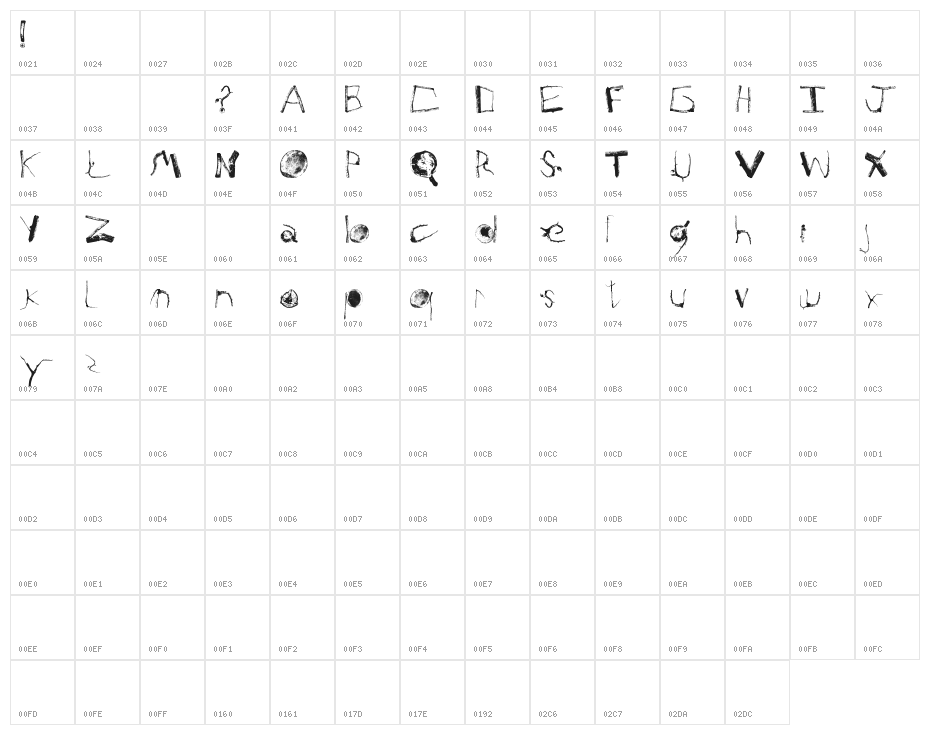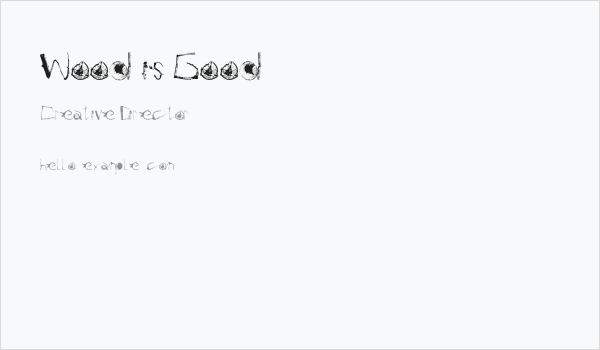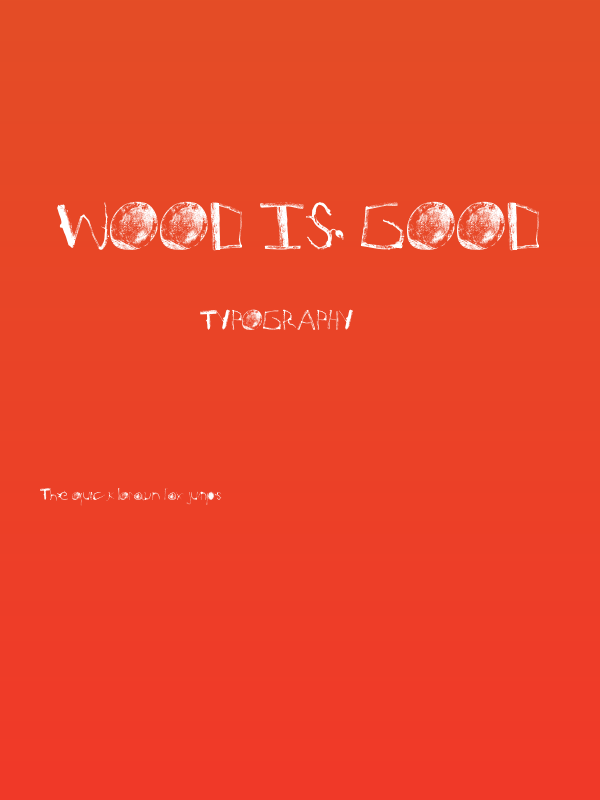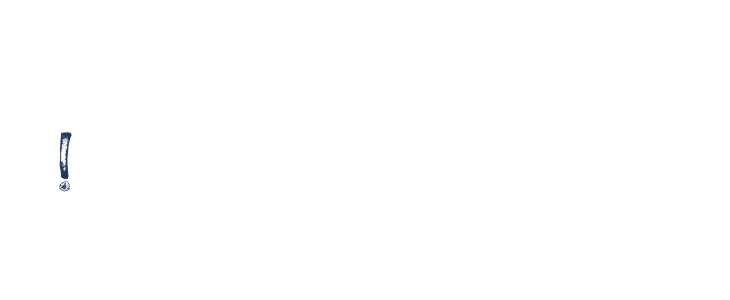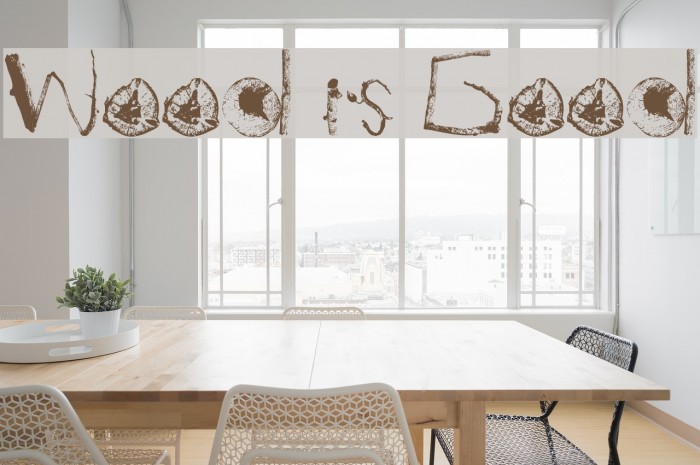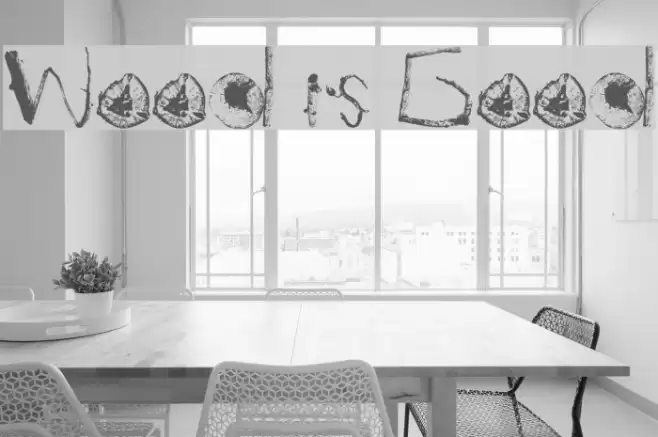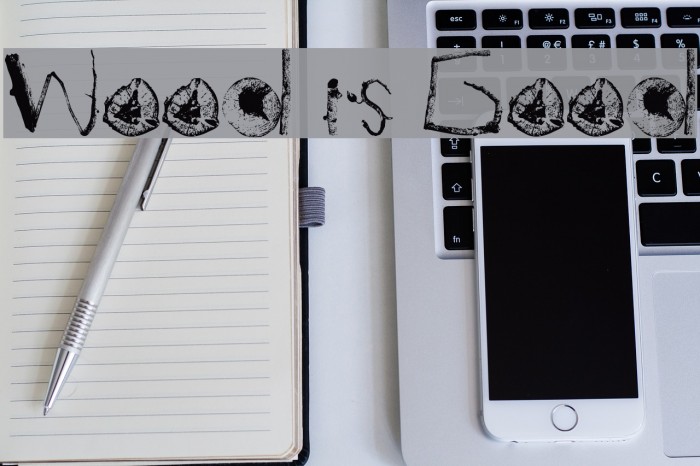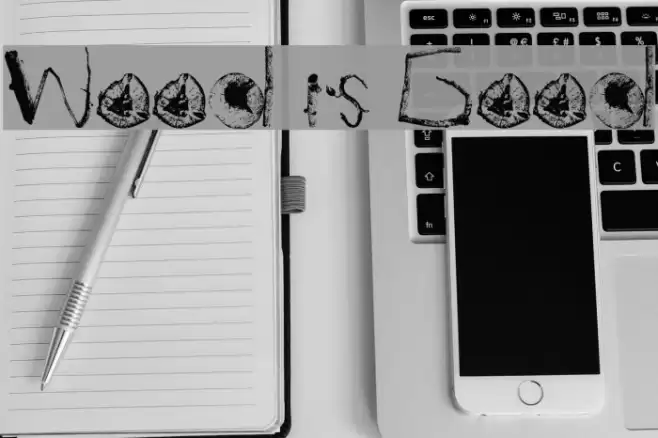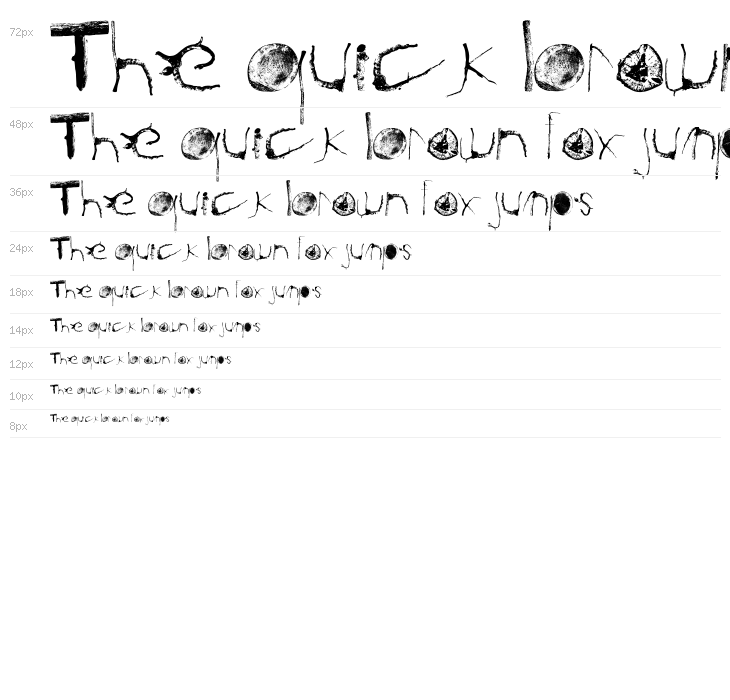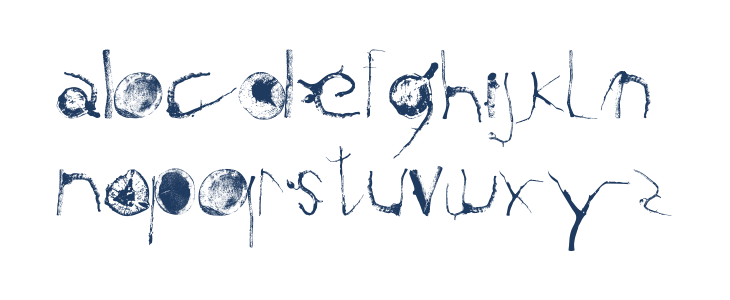
Wood is Good Font
This font exhibits a unique, handcrafted appearance reminiscent of woodcut prints. Each character is distinct, with irregular edges and a textured, organic feel that suggests natural materials. The uppercase letters are bold and assertive, while the lowercase letters maintain a consistent style, adding a touch of whimsy. The numbers and special characters follow the same artistic approach, ensuring a cohesive look across all elements. This font's rough-hewn aesthetic makes it stand out, offering a rustic charm that is both eye-catching and memorable.
| Overall Style | Rustic, Handcrafted |
| Use Case | Logos, Posters, Packaging |
| Proposed Projects | Ideal for projects that require a natural or rustic theme, such as eco-friendly branding, artisanal product packaging, or outdoor event posters. |